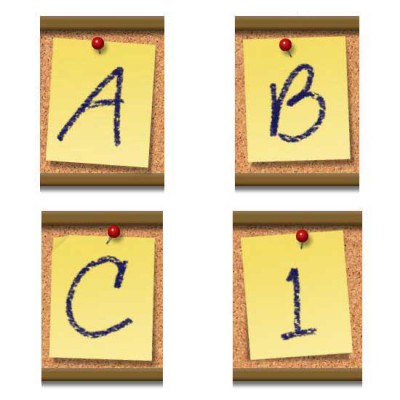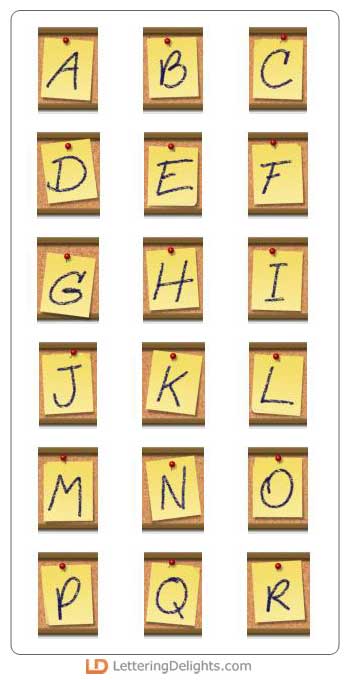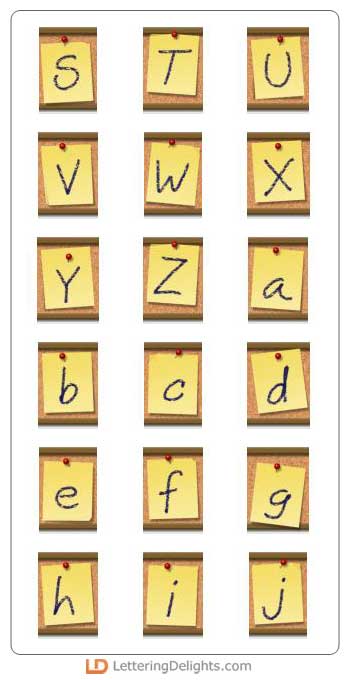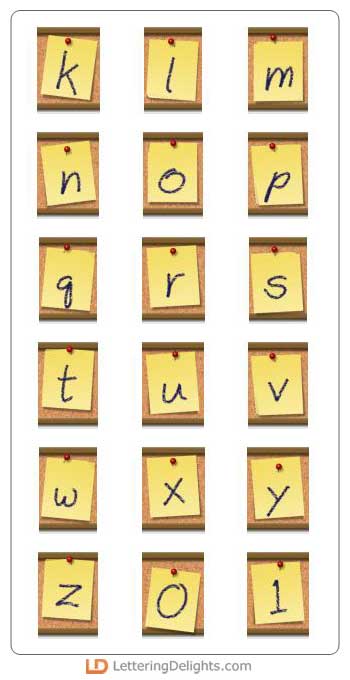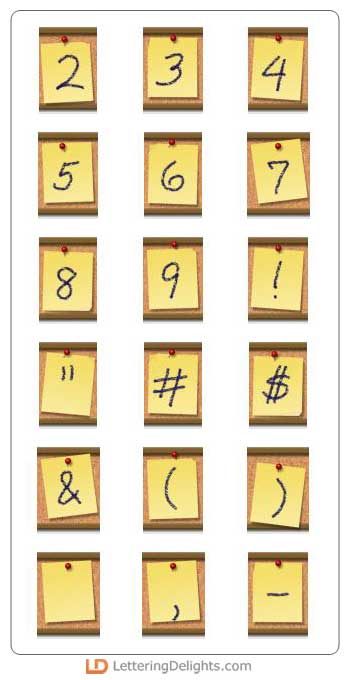
This alphabet is made of of a realistic looking corkboard. The letters are written on "sticky notes" and pinned to the corkboard. This alphabet would work well for a reminder note or flyer.